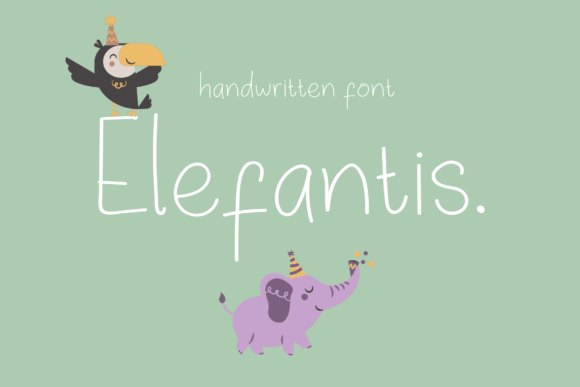
Venture into the world of captivating calligraphy with Elefantis Font, a script font family that's sure to leave an impression. This elegant typeface, crafted by the talented Cotton White Studio, embodies the charm of handwritten letters, adding a personal touch to your creative endeavors.
Step into a world of boundless creativity with Elefantis Font, where your imagination runs wild. Whether you're designing heartfelt invitations, crafting a compelling logo for your brand, or adding a touch of personality to your blog posts, Elefantis Font is your perfect companion. Its graceful strokes and enchanting characters bring a whimsical flair to any project, making it a true standout.
Unleash the power of your words with Elefantis Font. Transform your Instagram feed into a visual masterpiece, where each post exudes a unique charm. Craft enchanting cards that convey heartfelt messages, leaving a lasting impression on your loved ones. Elevate your social media presence with captivating visuals, engaging your audience with a font that speaks volumes.
Discover the versatility of Elefantis Font, a font that adapts seamlessly to your creative vision. Adorn your blog posts with a touch of elegance, captivating your readers with beautifully written text. Design eye-catching stickers that add a playful touch to your creations. Let your imagination soar as you explore the endless possibilities that Elefantis Font presents.
With Elefantis Font, you'll never run out of inspiration. Its carefully crafted characters bring life to your designs, adding a touch of magic to every project. Embrace the beauty of handwritten fonts and let Elefantis Font guide you on a creative journey like no other.